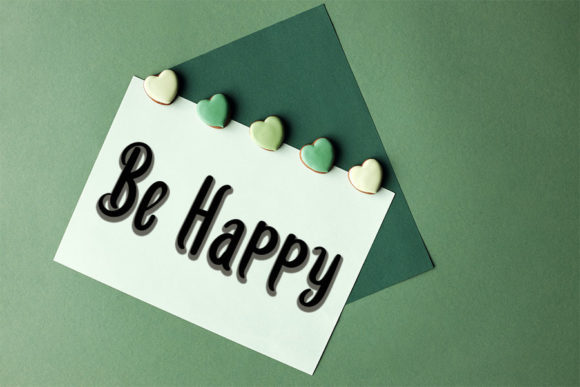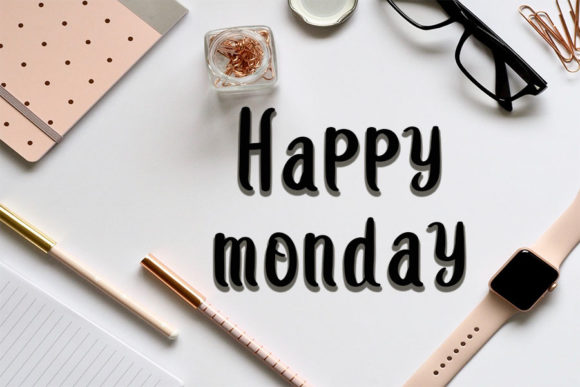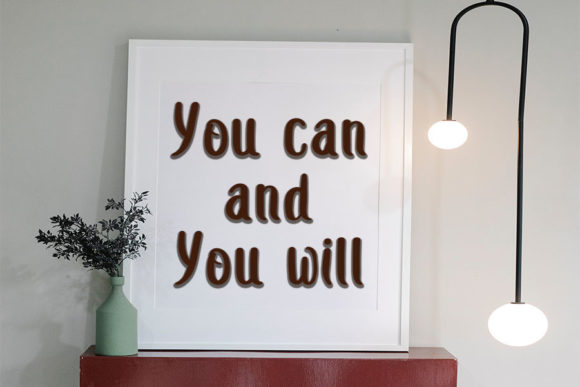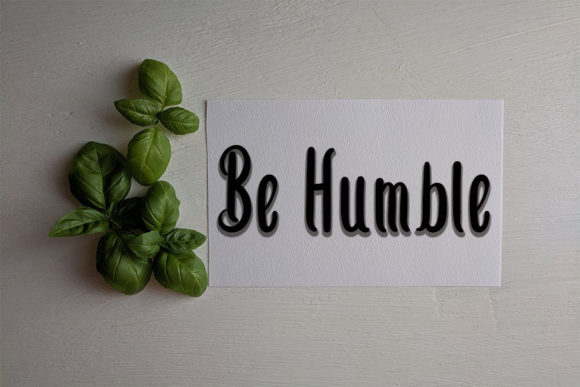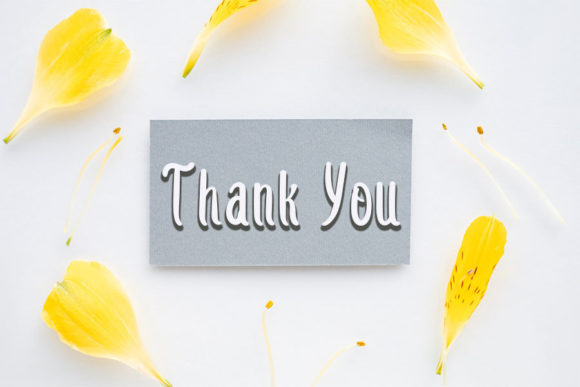
The Power of Bourista Font: Elevate Your Designs with a Bold, Handwritten Style
I’ll never forget the design project that led me to discover the Bourista Font. I was working on a branding project for a local coffee shop, and I needed a font that would convey a sense of warmth, energy, and playfulness. After hours of searching through font libraries and trying out different combinations, I stumbled upon Bourista – and it was love at first sight! ✨
An Honest Review of Bourista Font
- ✨ Unique and eye-catching design: Bourista’s bold, handwritten style is perfect for making a statement in headlines and logotypes.
- ✅ Highly legible: Despite its bold nature, Bourista remains easy to read, even at smaller font sizes.
- 💪 Confident and dynamic feel: This font exudes a sense of strength and energy, making it ideal for designs that need to pack a punch.
- 📚 Nostalgic character: Bourista has a charming, retro vibe that adds a touch of warmth and personality to any design.
While Bourista is an amazing font, it’s not without its quirks. 🤔 For example:
- ⚠️ Limited use in body text: Due to its bold nature, Bourista may not be the best choice for longer blocks of text. It’s best suited for headlines, titles, and short paragraphs.
- ⚠️ Some letter combinations may require adjustment: As with any font, some letter combinations may not look perfect. Be prepared to make adjustments to get the best results.
The Designer Inspiration Behind Bourista
While the true story behind Bourista’s creation is unknown, it’s easy to imagine that the designer was inspired by the classic typography of the past. Perhaps they spent hours pouring over vintage posters, signage, and advertisements, searching for a font that would capture the essence of a bygone era. 💡
Whatever the inspiration, Bourista is a true gem that brings a touch of nostalgia and sophistication to any design.
| Font Name | Bourista Font |
| Author | ONE DESIGN |
Q: What type of designs is Bourista best suited for?
A: Bourista is perfect for designs that require a bold, eye-catching font, such as headlines, logotypes, and short paragraphs.
Q: Is Bourista a difficult font to read?
A: Despite its bold nature, Bourista is surprisingly legible, making it a great choice for designs that require a strong, yet readable font.